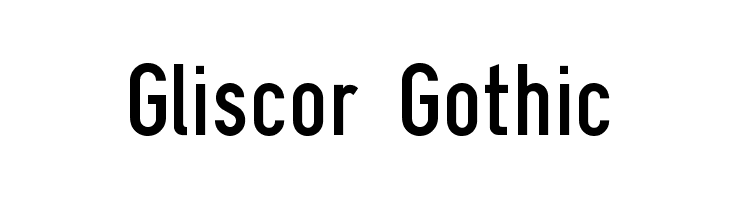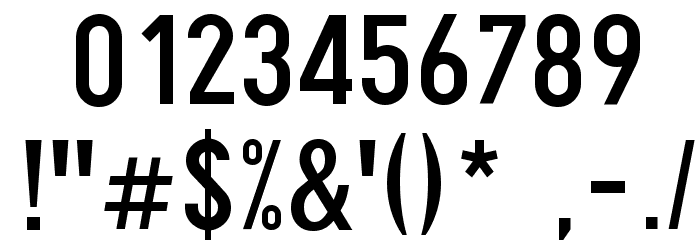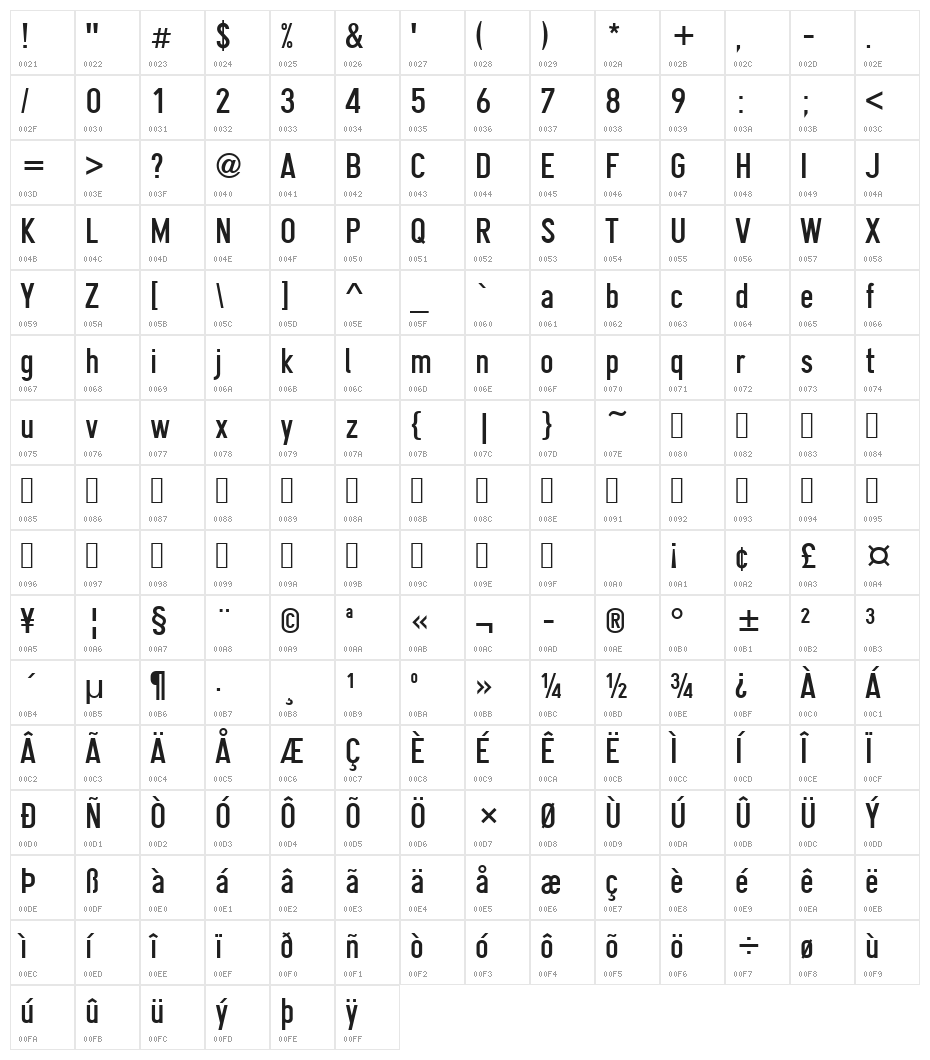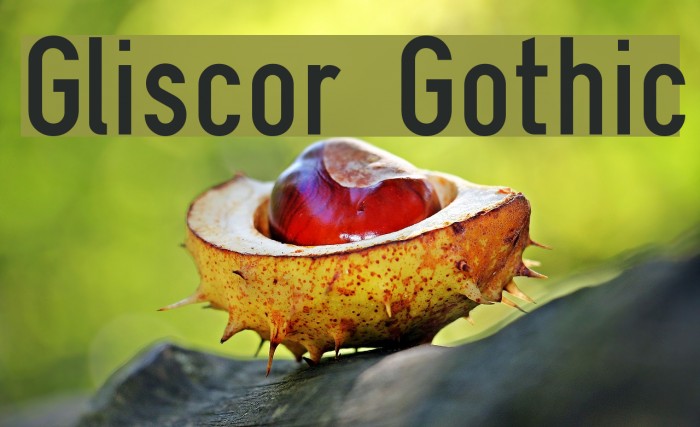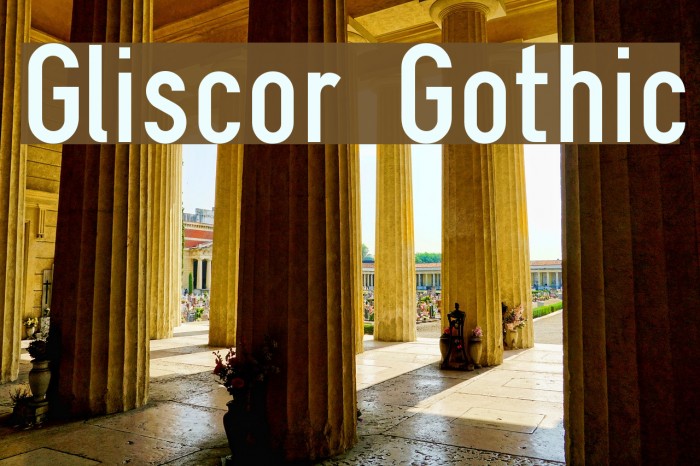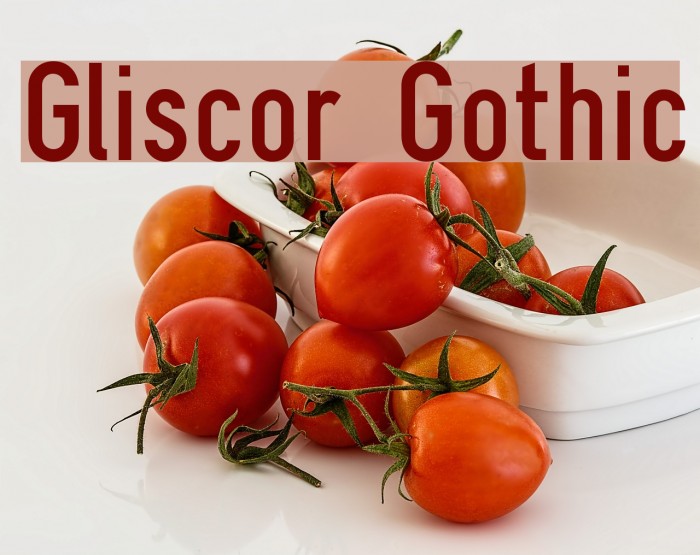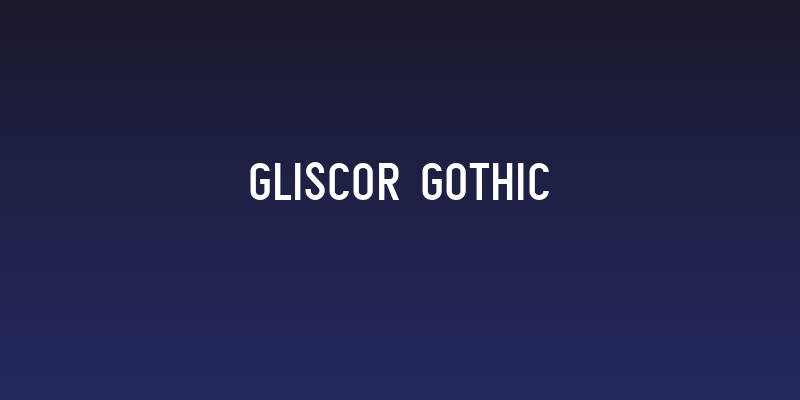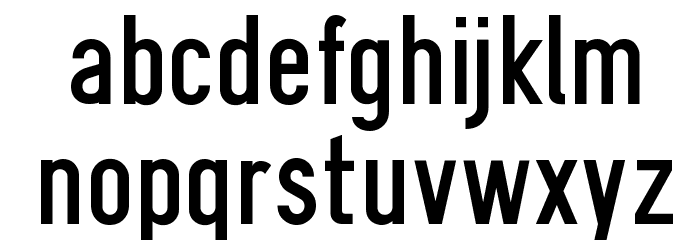
Gliscor Gothic Font
Gliscor Gothic Description
This font features a bold, modern aesthetic with clean lines and a strong presence. The uppercase letters are tall and commanding, while the lowercase letters maintain a consistent height, offering a balanced look. The numerals are clear and easily distinguishable, making them suitable for various applications. Special characters are well-integrated, ensuring versatility in design. The overall style is contemporary, with a slight geometric influence, making it ideal for projects that require a modern and professional appearance.